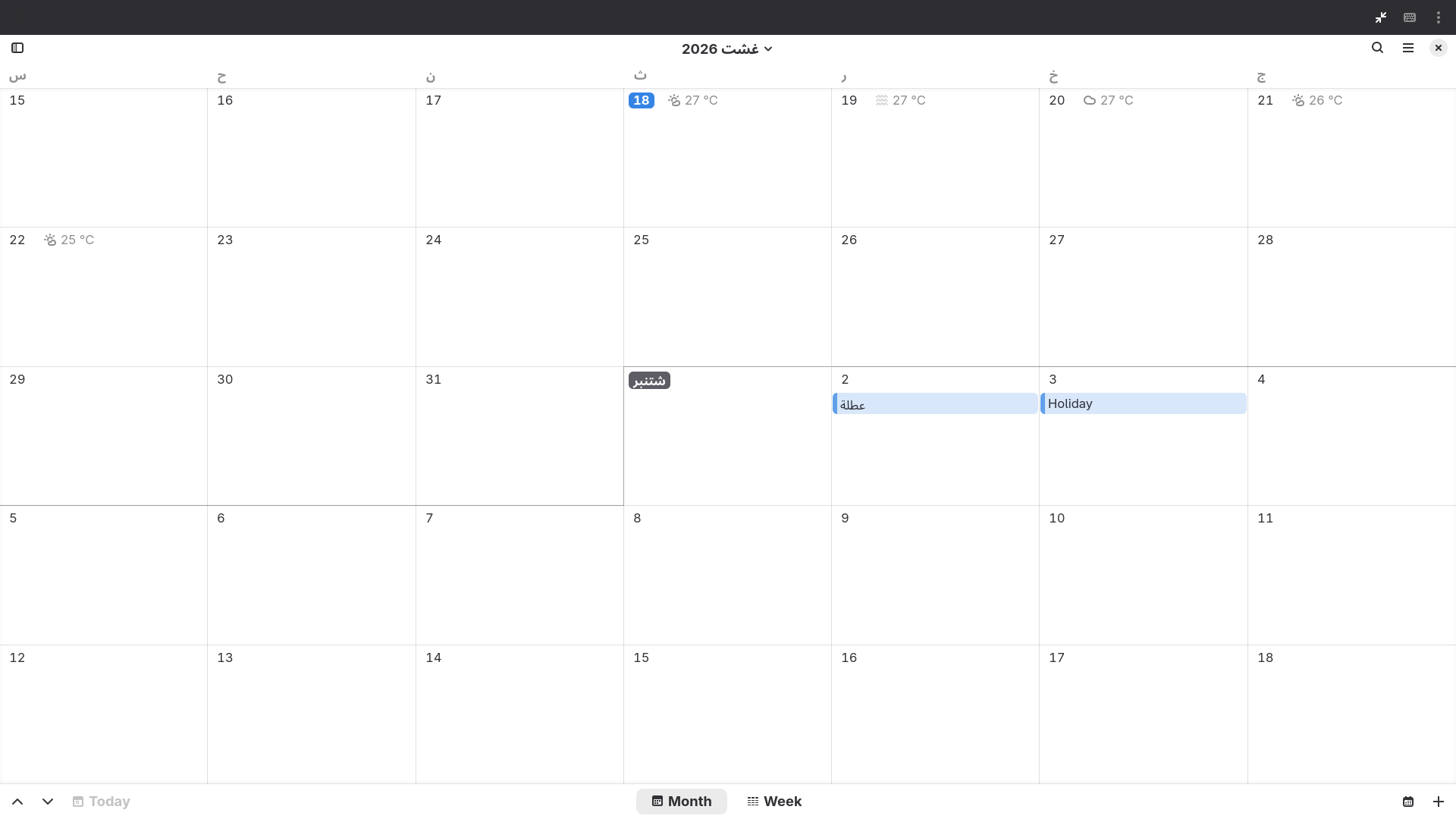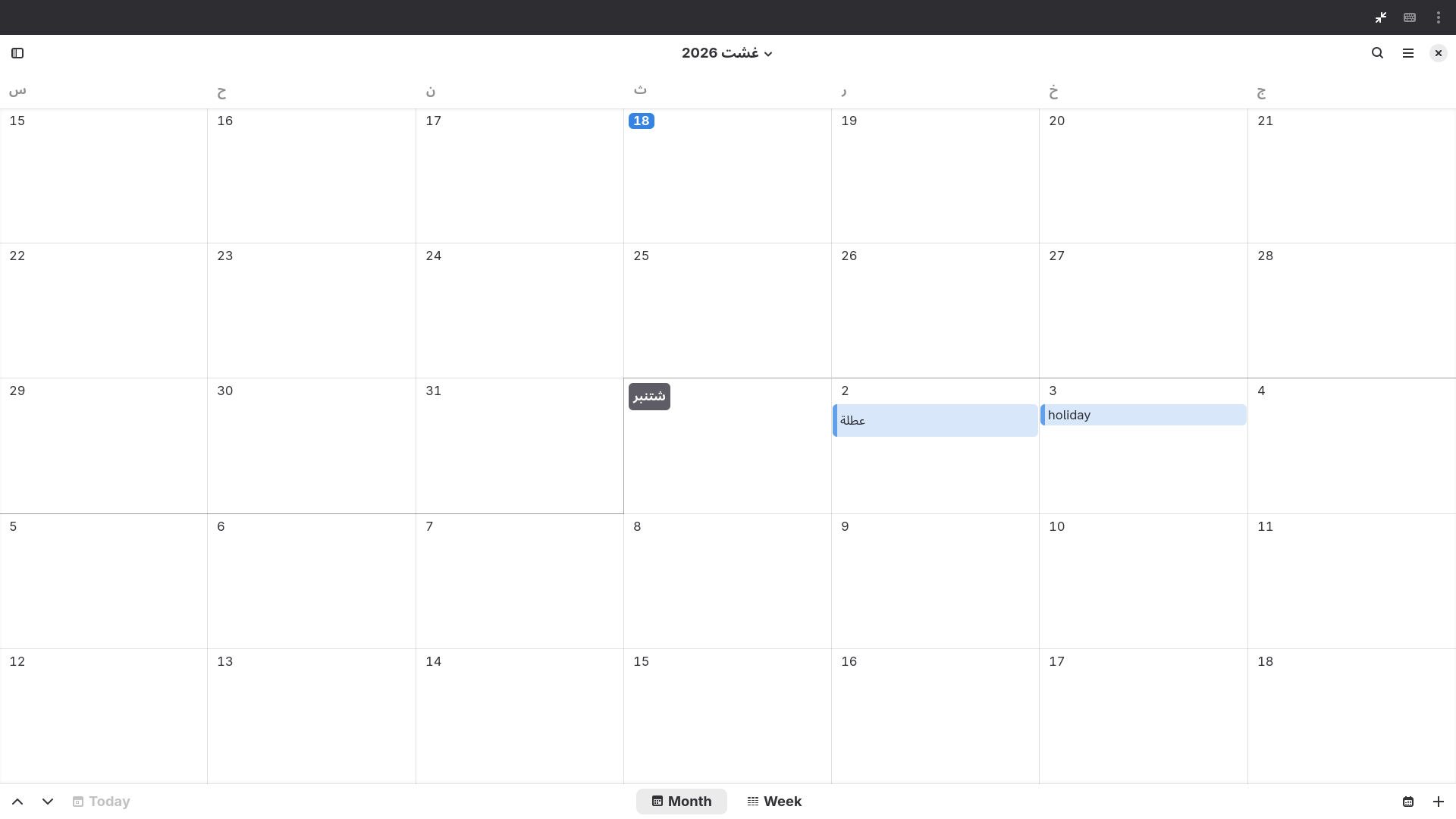
Setting the interface font to Adwaita Sans:
gsettings set org.gnome.desktop.interface font-name 'Adwaita Sans 11'
works fine for Latin text, but Adwaita Sans doesn’t cover non-Latin scripts, so glyph resolution falls back through fontconfig’s generic sans-serif alias. On Fedora — which ships Noto as the default fallback — that currently resolves to the document-oriented Noto family for each script (e.g. Noto Sans Arabic), which has noticeably taller line metrics than a UI font.
This isn’t Arabic-specific. Noto publishes UI-scoped variants precisely for this reason, and the split applies to a wide set of complex scripts: Arabic uses Noto Sans Arabic UI or Noto Naskh Arabic UI for interfaces with limited vertical space, with the non-UI fonts reserved for documents, and the same UI/non-UI split applies to Bengali, Devanagari, Gujarati, Gurmukhi, Kannada, Khmer, Lao, Malayalam, Myanmar, Oriya, Sinhala, Tamil, and Telugu (see Noto’s guidance). Falling back through plain sans-serif skips that distinction for every one of these scripts, so UI strings (menus, labels, buttons) in any of them end up with mismatched line-height/vertical rhythm next to Latin/Adwaita Sans text in the same window.
This isn’t fixable by just installing the UI font. google-noto-sans-arabic-ui-fonts (and the equivalent UI packages for the other scripts above) is not installed by default on Fedora — only the document-variant packages are pulled in as part of the default Noto fallback set. So even a user who’s aware of the UI/non-UI distinction can’t get correct metrics without manually installing an extra package per script, and even then, nothing in the fallback chain prefers it over the non-UI family once it is installed — the fallback resolution itself needs to target a UI-scoped generic.
Expected behavior: the interface font stack’s fallback should route through a UI-scoped generic (system-ui, per the CSS Fonts model) rather than plain sans-serif, so script fallback picks UI-optimized faces automatically for any of the affected scripts — and Fedora’s default font set should include the UI variants for this to work out of the box.
Why this matters: this looks like the same underlying gap as the earlier system-ui fontconfig work from the Cantarell → Adwaita Sans transition (RHBZ#2449666, RHBZ#2453024) — it just wasn’t visible for Latin-only setups since Adwaita Sans covers Latin natively. It becomes visible as soon as any of these scripts needs fallback.
Steps to reproduce (test on Fedora, not GNOME OS; Arabic used here as the concrete case):
sudo dnf install google-noto-sans-arabic-ui-fonts(not installed by default)gsettings set org.gnome.desktop.interface font-name 'Adwaita Sans 11'- Switch to an Arabic locale / open an app with Arabic UI strings
- Observe line height / vertical spacing mismatch vs. Latin UI elements in the same window — the mismatch persists even with the UI font installed, since fallback doesn’t prefer it
Note: GNOME OS ships DejaVu Sans as its fallback rather than Noto, so this won’t reproduce there — needs to be tested against a Noto-based system (Fedora is the natural choice, since it’s the default there).
Environment: Fedora Rawhide, GNOME (current), fontconfig (2.18.3)
Simple Test for example:
Look to Calendar day 2 ( عطلة ) and 3 (Holiday).
[Good] Adwaita Sans + Noto Sans Arabic UI (System UI)
[Bad] Adwaita Sans + Noto Sans Arabic (Sans Serif)